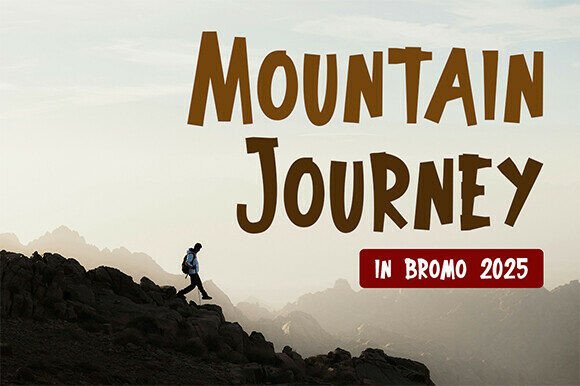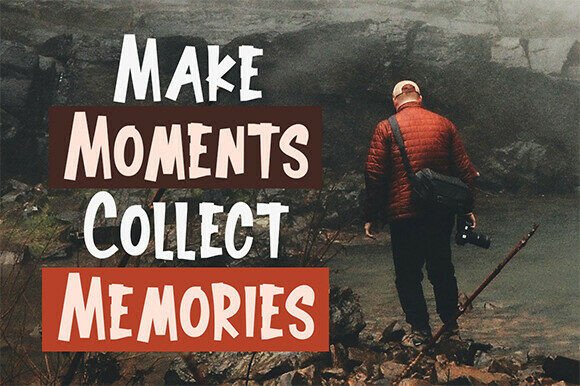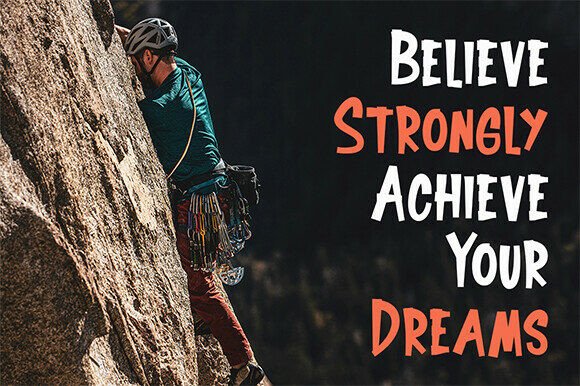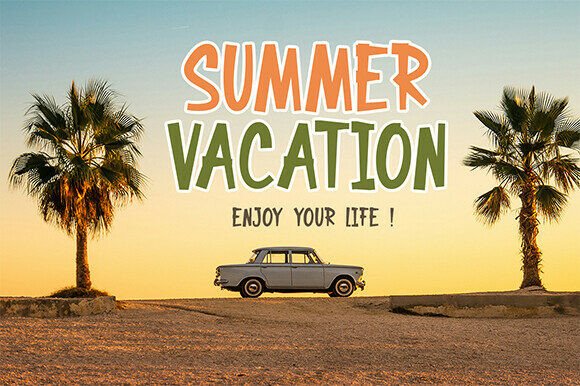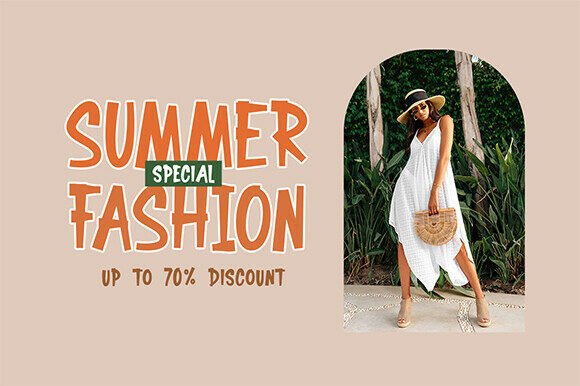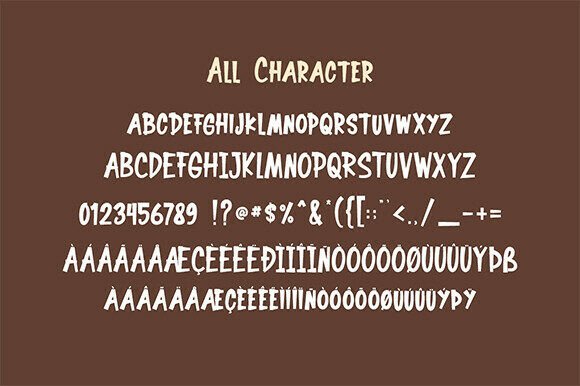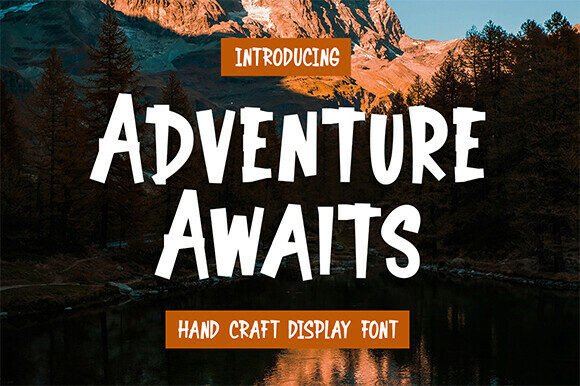
The Moment of Truth: Finding the Perfect Font
I still remember the frustration of working on a project, hours spent crafting the perfect design, only to hit a roadblock: finding the right font. My client wanted something that would inspire and motivate their audience, but every font I tried seemed to fall flat. That was until I stumbled upon Adventure Awaits, a handcrafted display font that brought energy, creativity, and a spirit of exploration to my design.
An Honest Review of Adventure Awaits Font
- ✨ Bold and lively strokes: Adventure Awaits has a unique, handcrafted feel that adds a touch of personality to any design.
- ✅ Perfect for inspirational projects: This font is designed to inspire and motivate, making it ideal for projects that aim to stand out.
- 💡 Highly versatile: From posters and flyers to social media graphics and branding, Adventure Awaits can be used in a variety of design applications.
While Adventure Awaits is an excellent font, there are a few things to keep in mind:
- 🤔 Legibility at small sizes: As with many display fonts, Adventure Awaits can be difficult to read at small sizes. It’s best used at larger sizes where its unique character can shine.
- ⚠️ Limited use in body text: While it’s tempting to use Adventure Awaits for body text, it’s not the best choice. Its bold and lively strokes are better suited for headings and titles.
A Practical Guide to Using Adventure Awaits
- Experiment with OpenType features, such as stylistic alternates and glyphs, to add more personality to your design.
- Take advantage of OpenType features, such as swashes and ligatures, to add more flair to your design.
- Use the font to create eye-catching headings and titles that will make your document stand out.
The Backstory of Adventure Awaits
Adventure Awaits was designed by a team of creatives who wanted to capture the spirit of exploration and adventure. Inspired by vintage travel posters and classic adventure novels, they crafted a font that’s perfect for designs that aim to inspire and motivate.
Q: What type of projects is Adventure Awaits best suited for?
A: Adventure Awaits is perfect for projects that aim to inspire and motivate, such as posters, flyers, social media graphics, and branding.
Q: Can I use Adventure Awaits for body text?
A: While it’s tempting to use Adventure Awaits for body text, it’s not the best choice. Its bold and lively strokes are better suited for headings and titles.